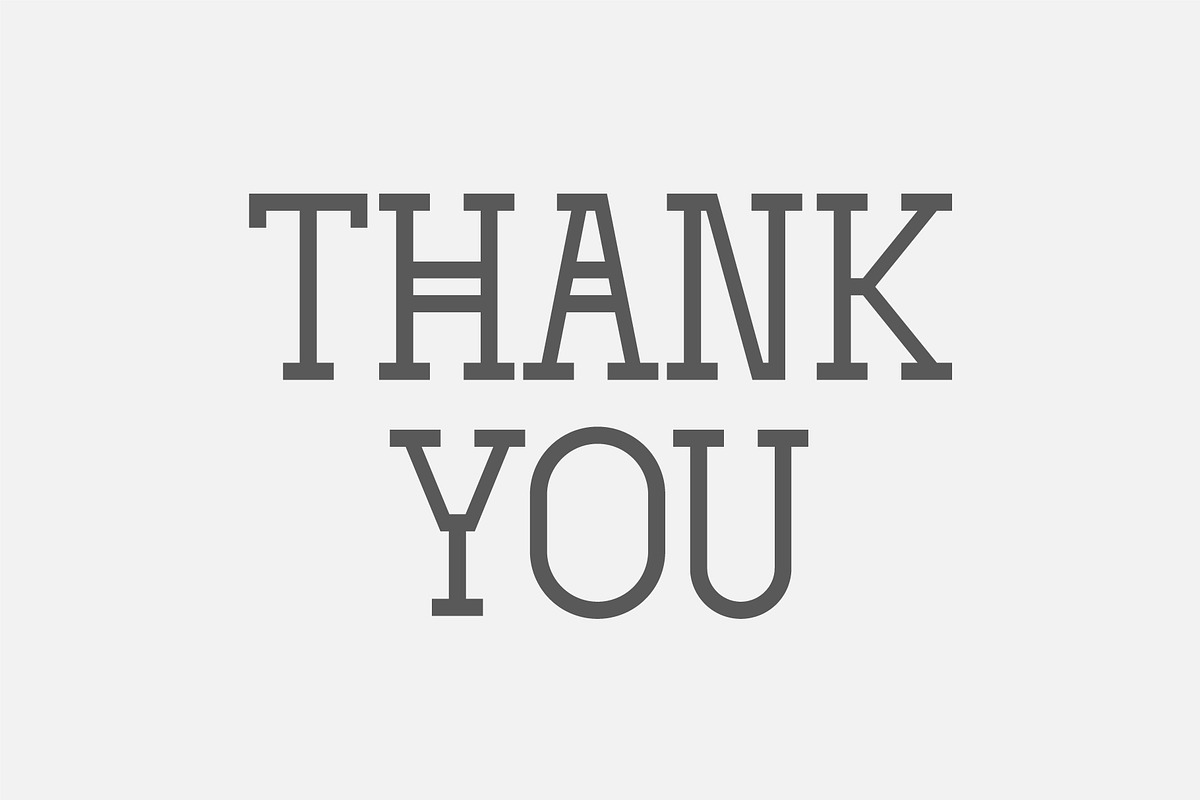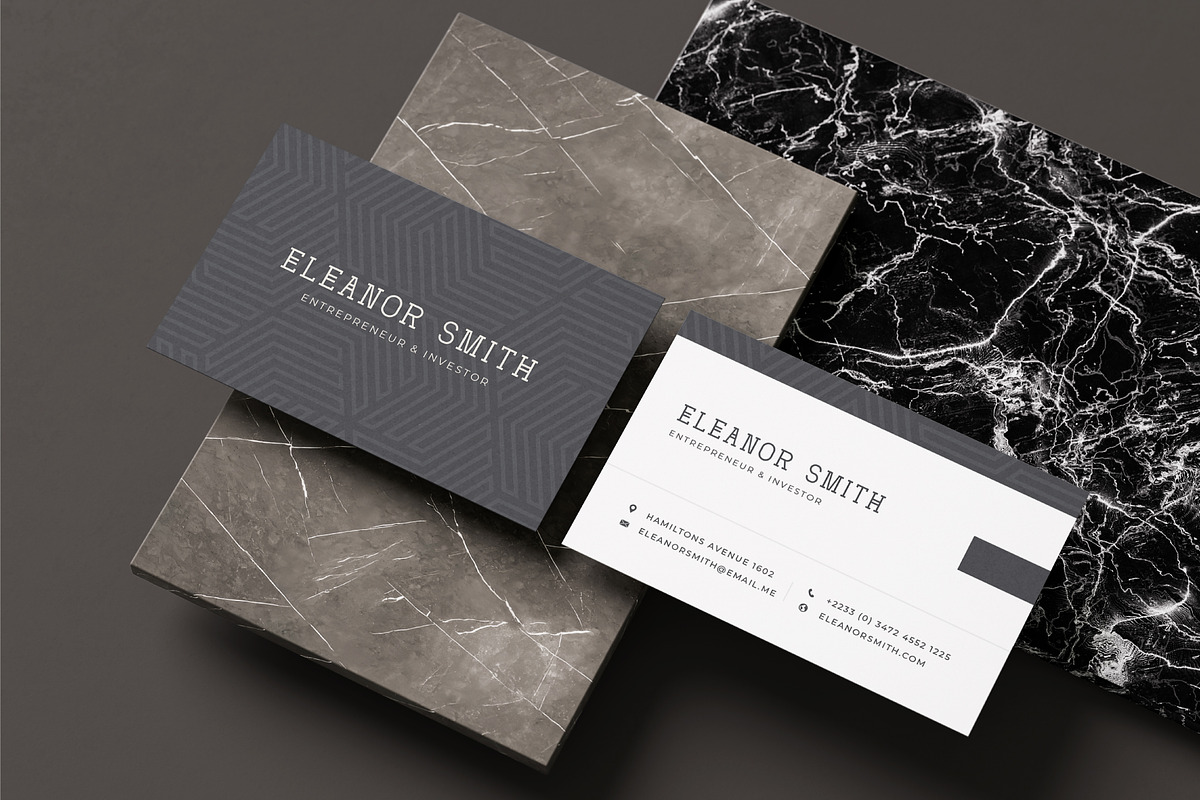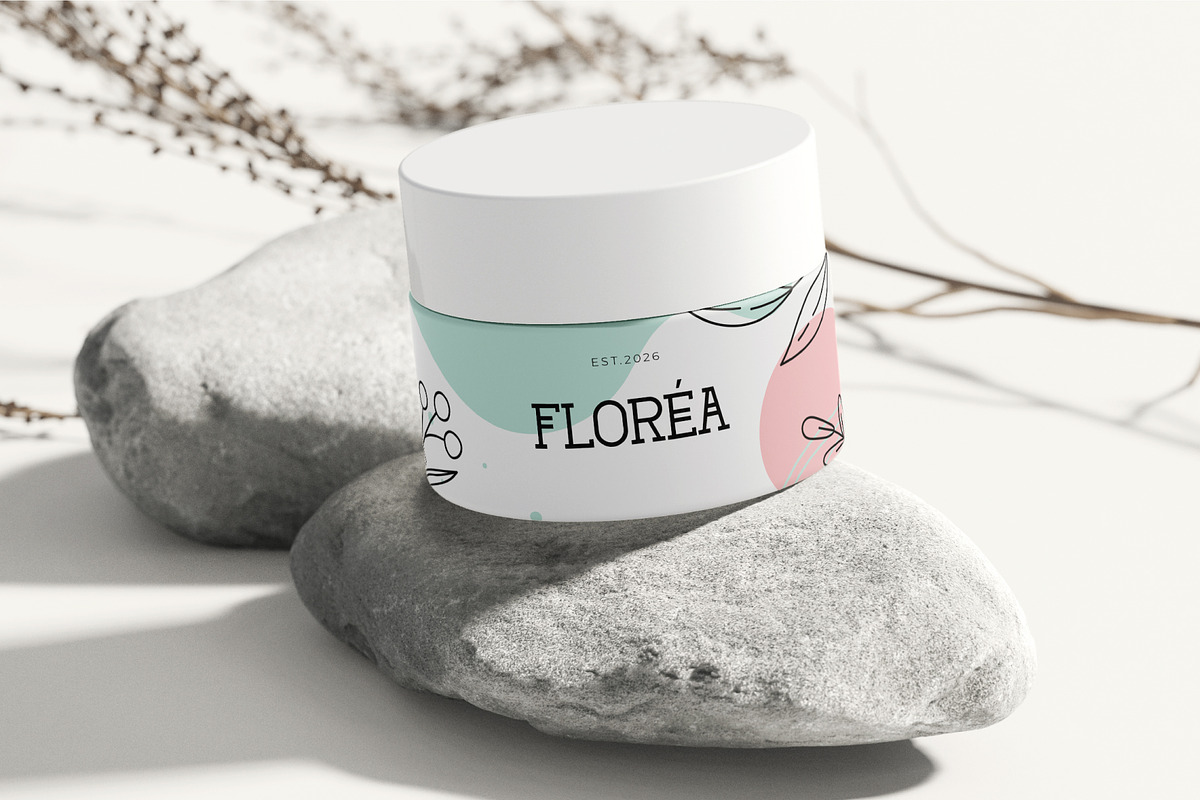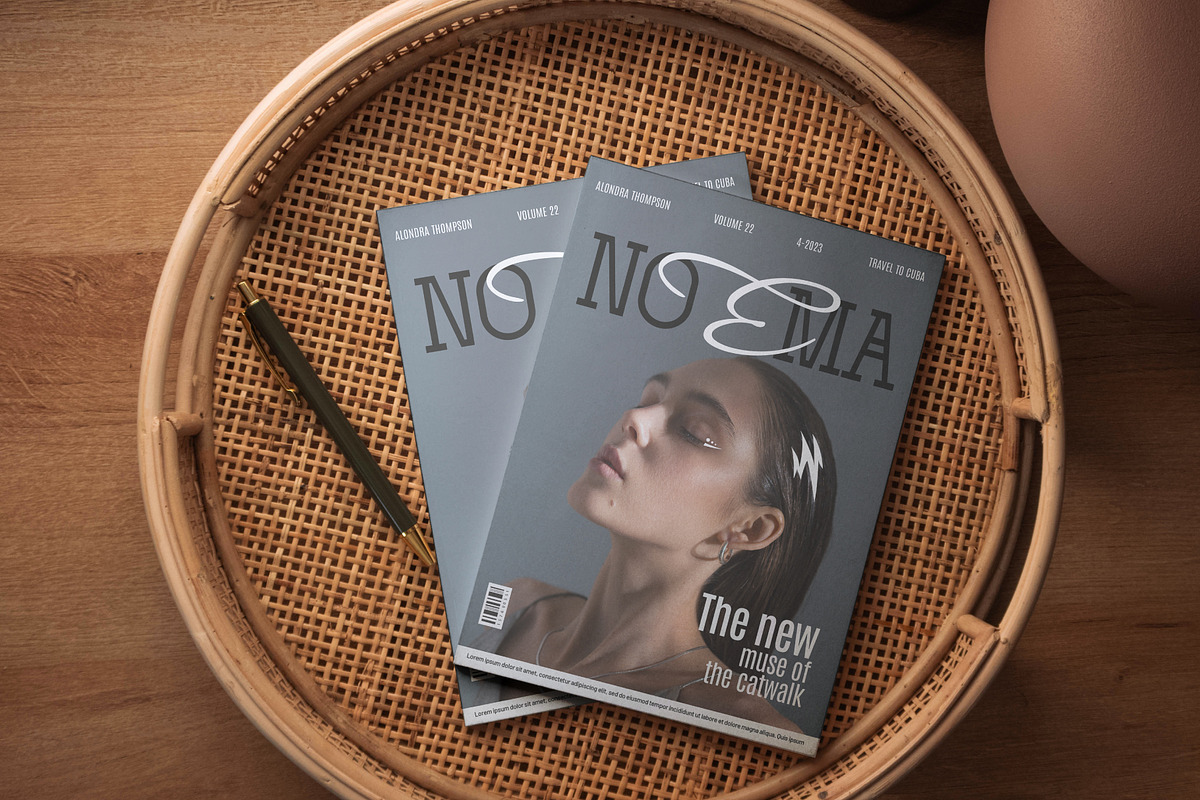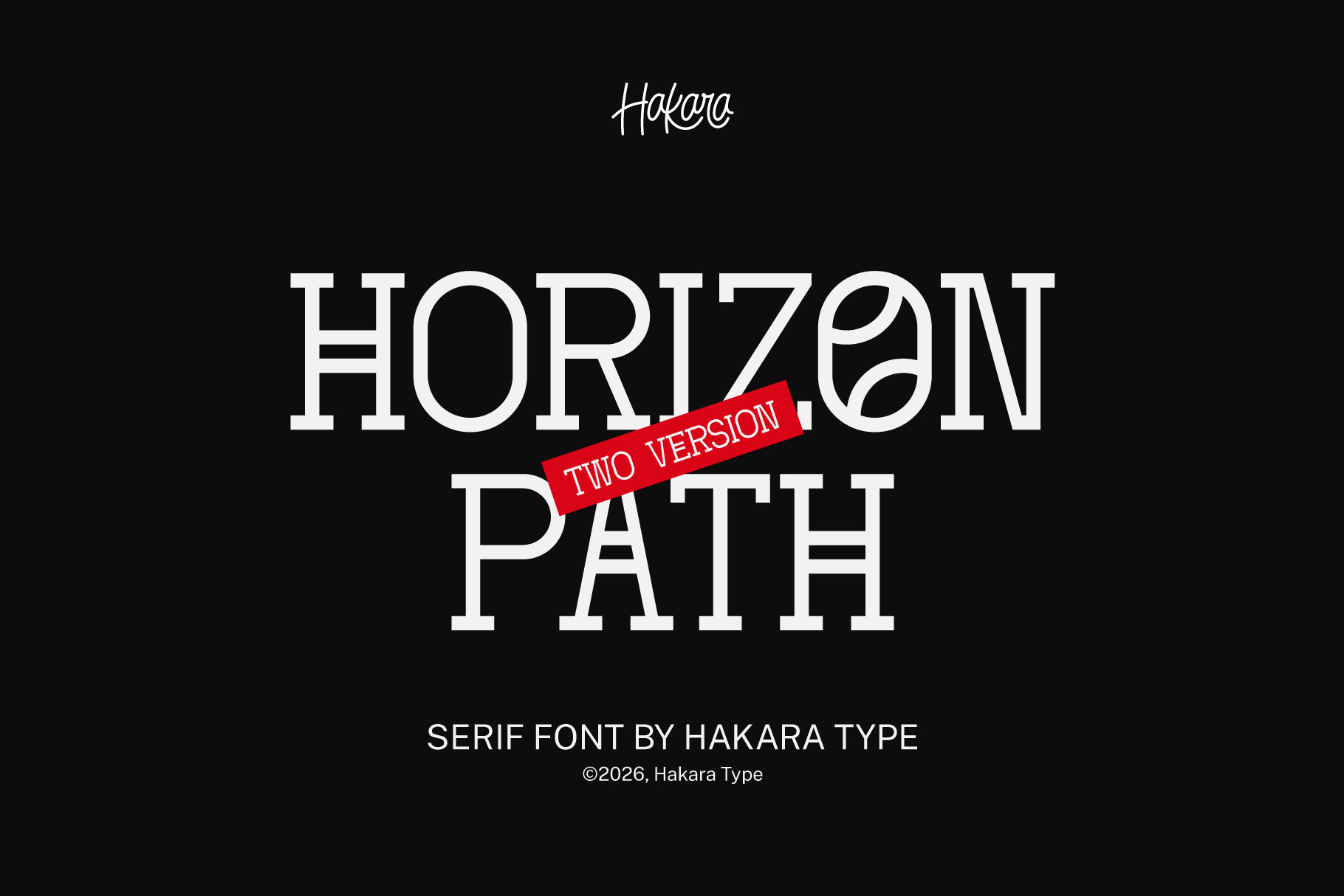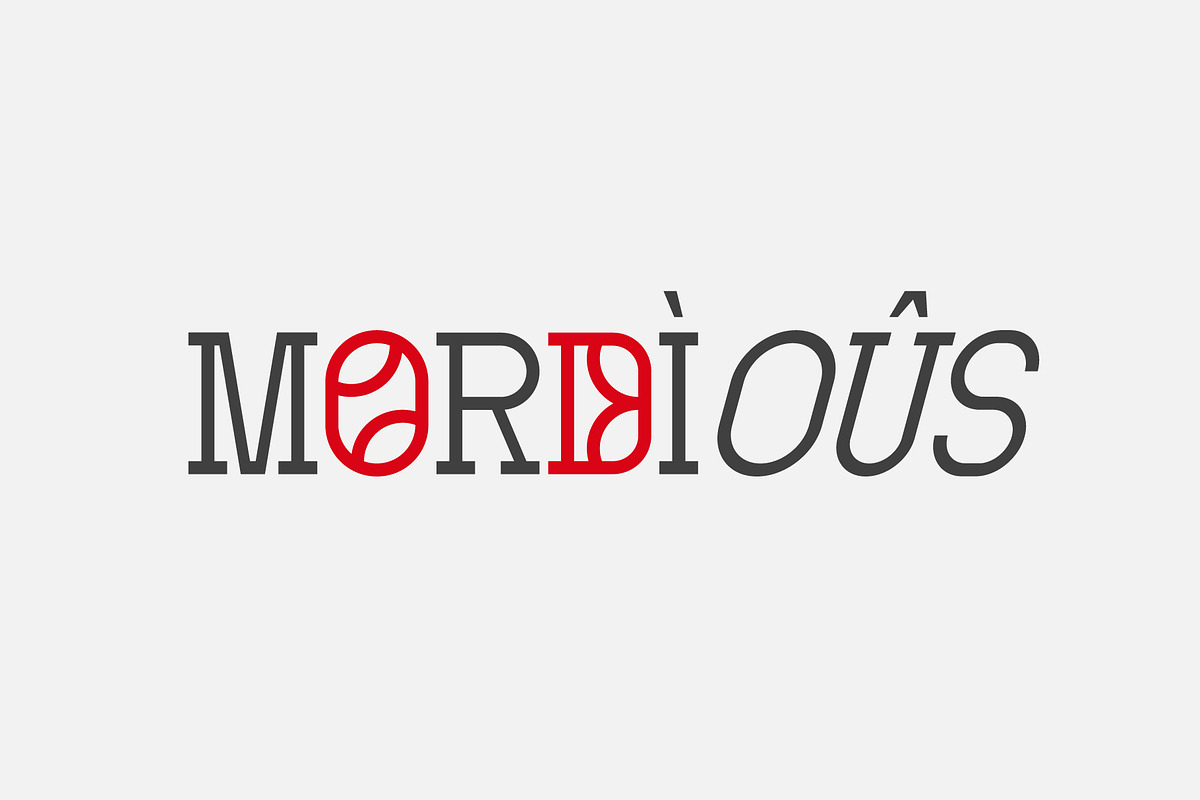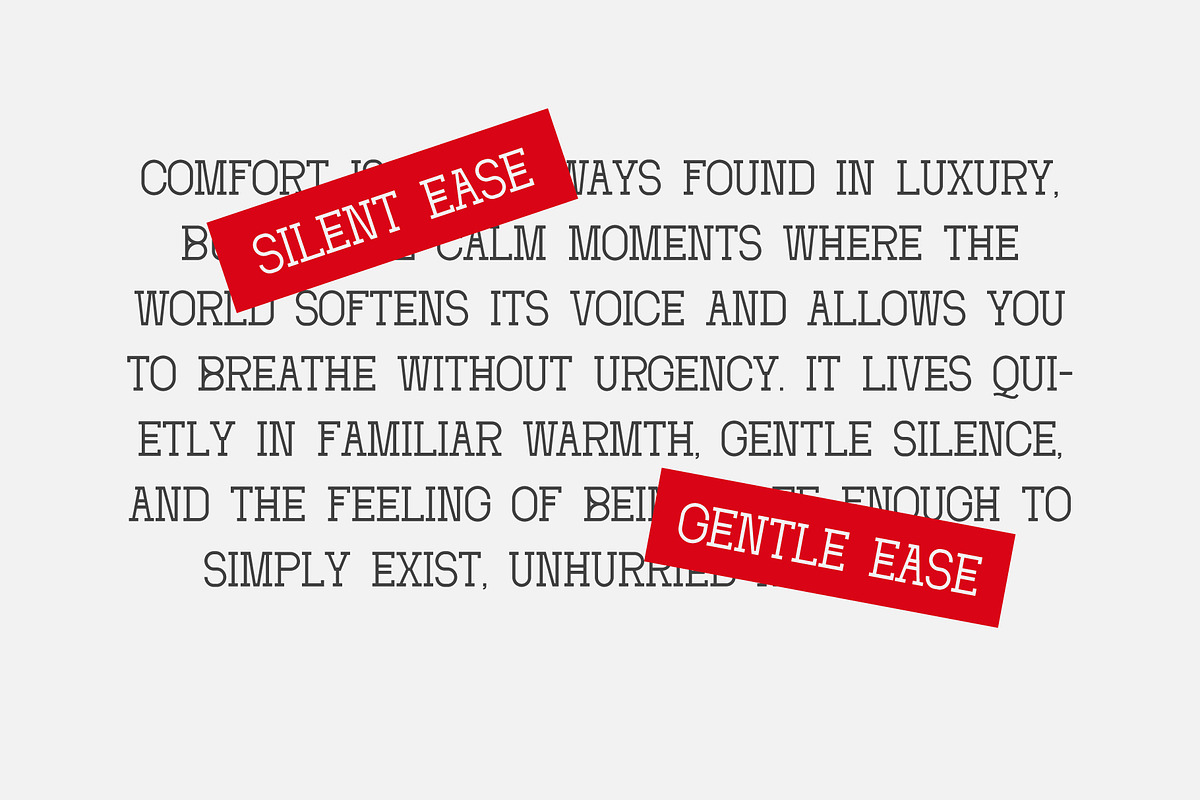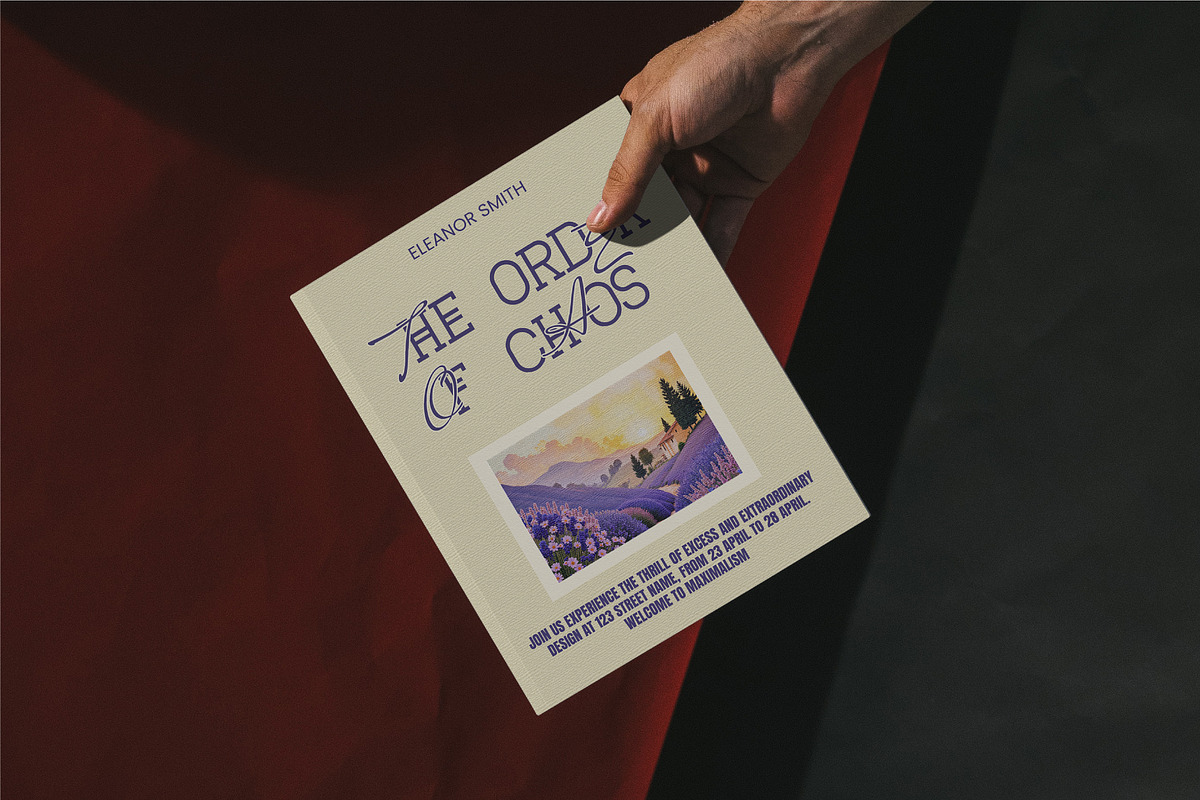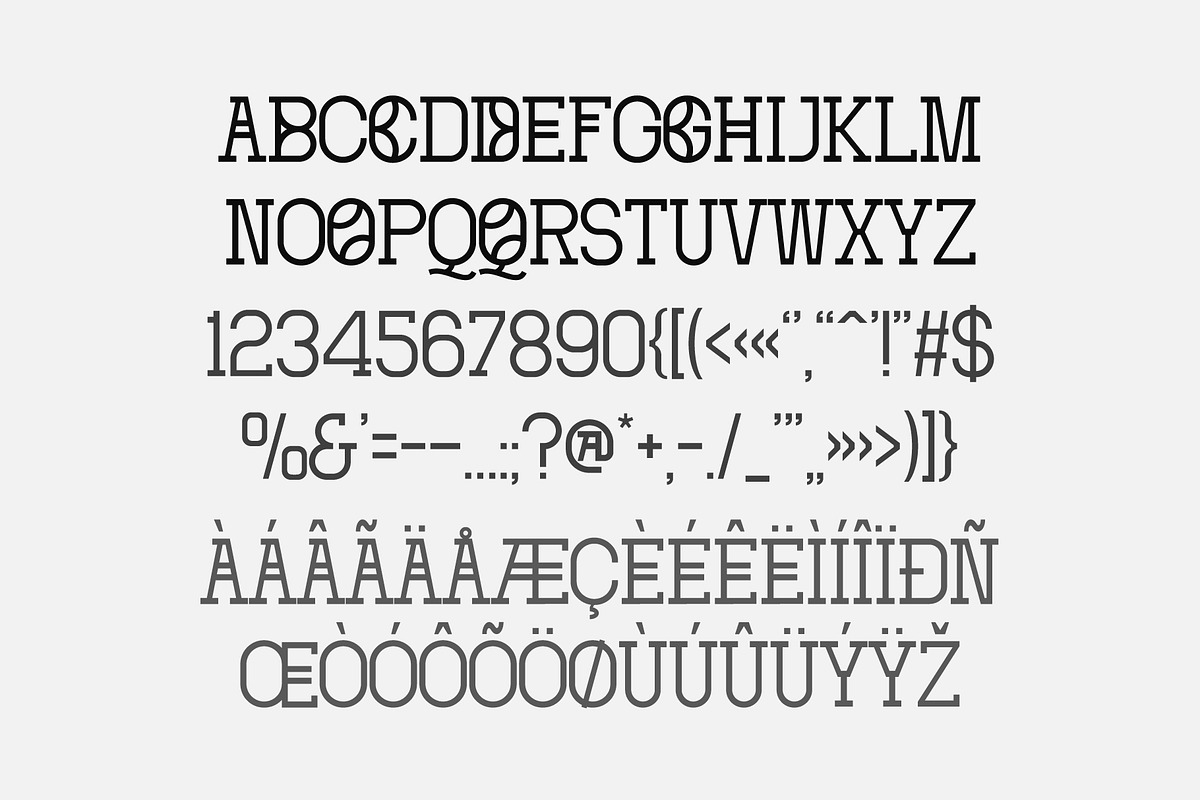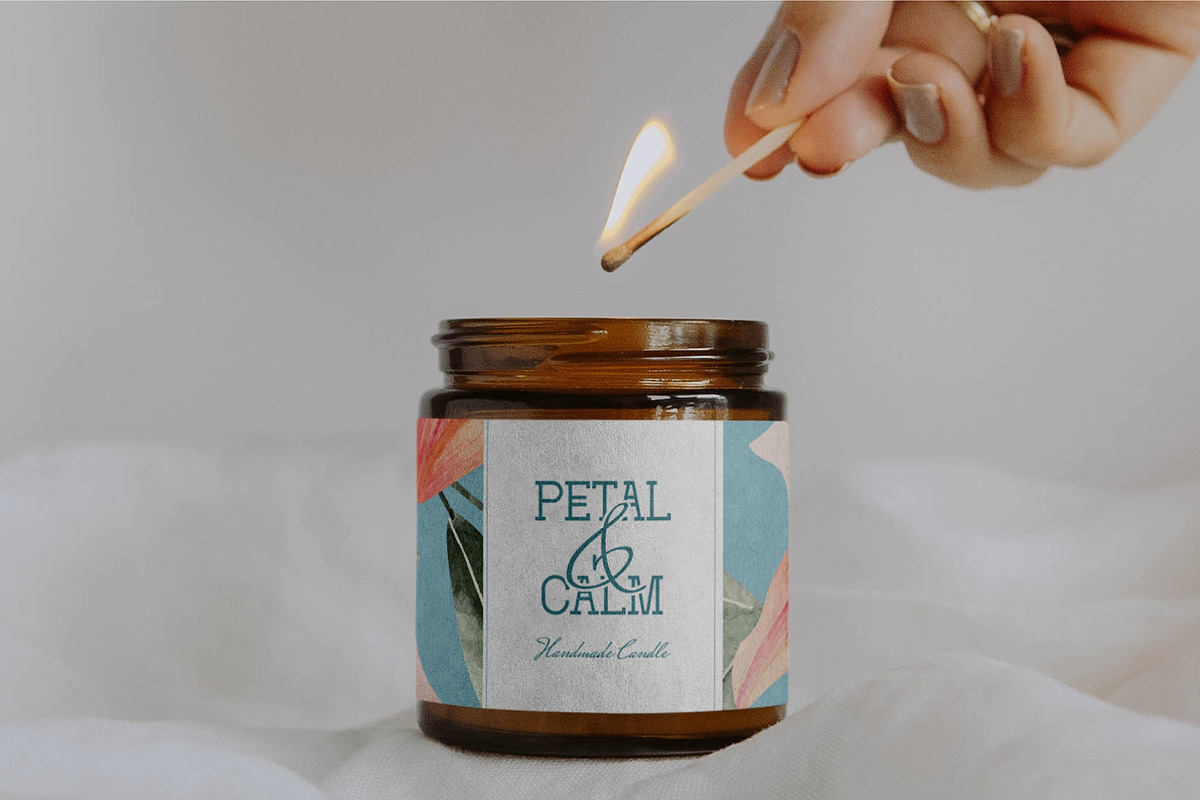
Horizon Path – Modern Serif Font
Horizon Path is a modern serif font that blends classic elegance with a contemporary edge. Designed with refined proportions and confident letterforms, this typeface is ideal for projects that require sophistication, clarity, and a strong visual identity.
This font includes two font styles: Regular and Oblique, offering flexibility for emphasis, hierarchy, and expressive typography while maintaining a consistent design language. The Oblique version adds a dynamic and elegant touch without losing readability or character.
Horizon Path supports multilingual languages, making it suitable for international projects, global branding, and diverse editorial needs. Its clean serifs, balanced contrast, and stylish curves perform beautifully in headlines, titles, and display text.
Perfect for branding, logos, magazines, posters, book covers, packaging, and luxury design projects, Horizon Path delivers a timeless yet modern typographic voice.